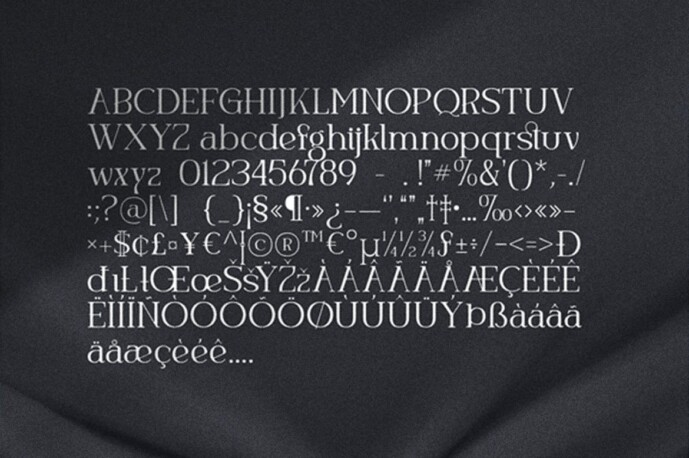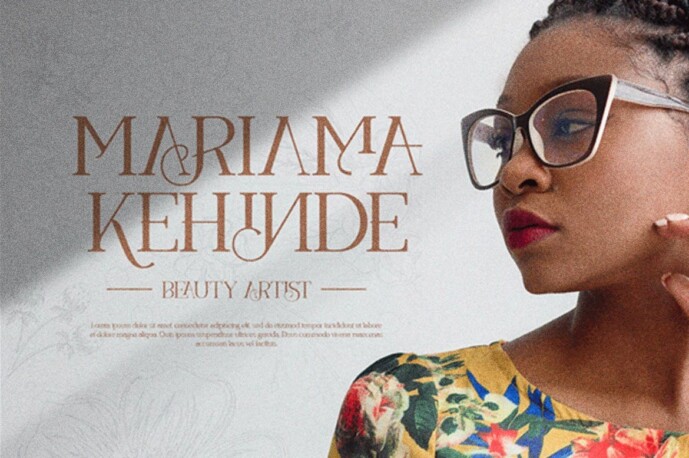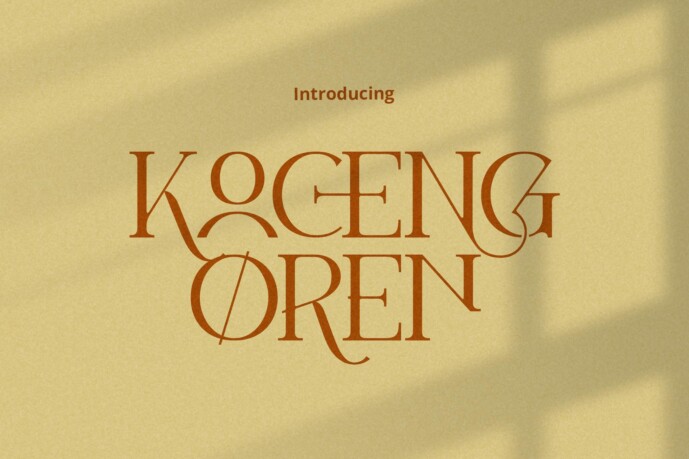
Koceng Oren Font
Koceng Oren Font is an elegant and stylish serif typeface. It’s sharp and light edges, that creates beautiful typographic adjacency. The font is perfect for text quotes and other graphic design projects such as wedding invitation card, Magazine Header and body text, flyer header and even logo text.